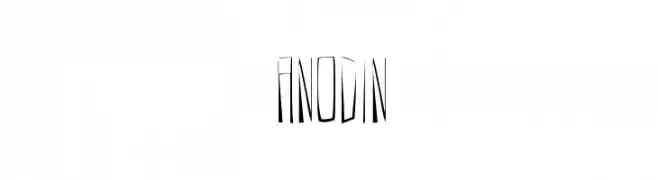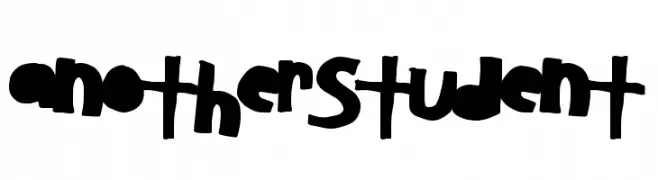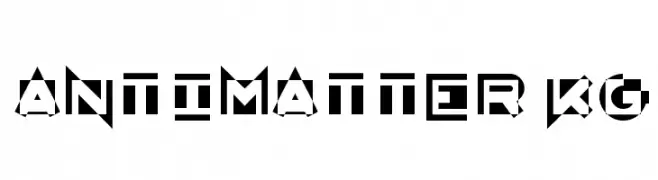
A dynamic, expressive handwritten font with irregular, spontaneous strokes.
A playful, decorative font with outlined letters and dandelion illustrations.
A bold, playful handwritten font with rounded strokes and a lively appearance.
A lively, cursive font with a natural, handwritten feel.
A bold, dripping font ideal for horror themes.
A bold, hand-drawn font with a sketch-like, edgy appearance.
A jagged, edgy font with sharp, angular strokes for a dynamic appearance.
A bold, geometric font with angular lines and a modern aesthetic.
A playful, rounded font with heart-shaped accents and a whimsical style.
A playful, rounded font with a whimsical and friendly style.
A playful, bold, and italic handwritten font with a whimsical style.
A playful, handwritten font with italicized, heart-accented characters.
A modern, geometric font with rounded edges and consistent stroke width.
A playful, handwritten font with flowing, interconnected letters and a whimsical style.
An elegant and flowing script font with artistic cursive strokes.
A playful and elegant script font with flowing, cursive letters and decorative flourishes.
An elegant, flowing script font with a sophisticated, handwritten style.
A bold, graffiti-style font with a distinctive dripping effect.
Geometric decahedron dice symbol font with numbers and dot patterns.
A whimsical, spider web-themed decorative font with bold, angular strokes.
A bold, expressive script font with dynamic, interconnected characters.
A playful, rounded font with a hand-drawn, whimsical style.